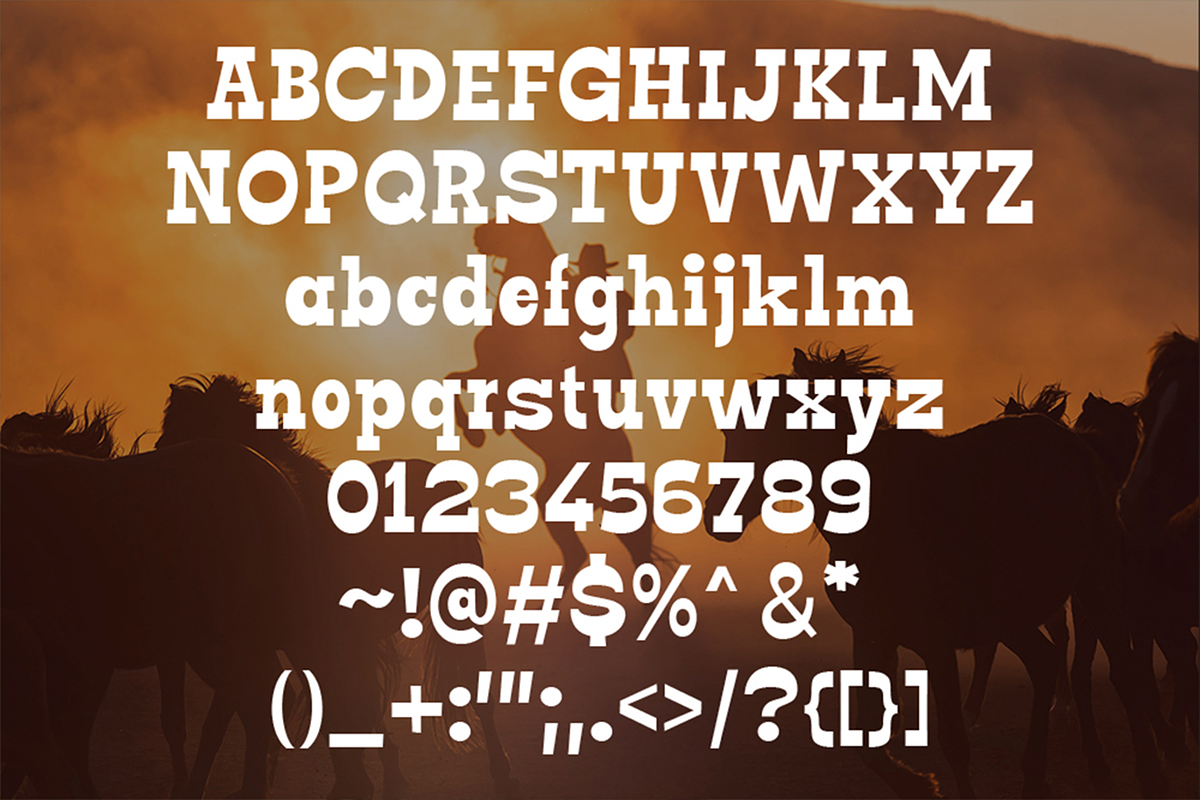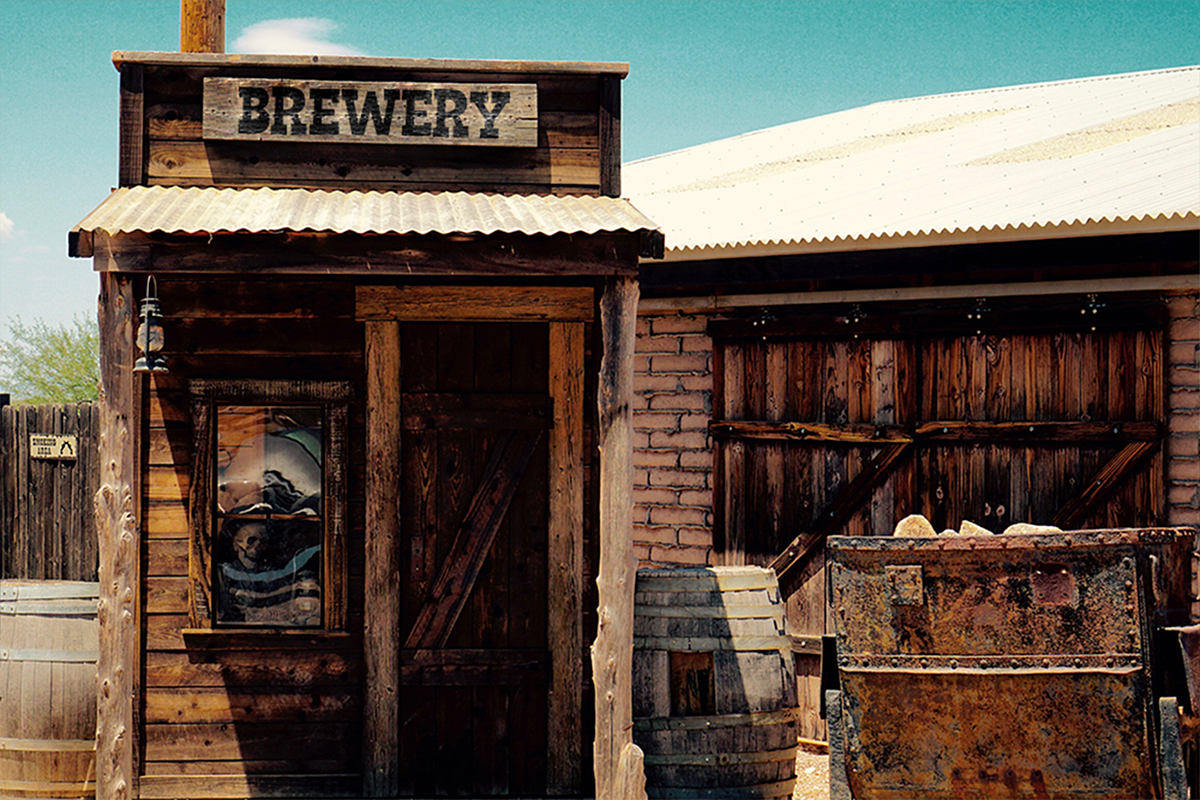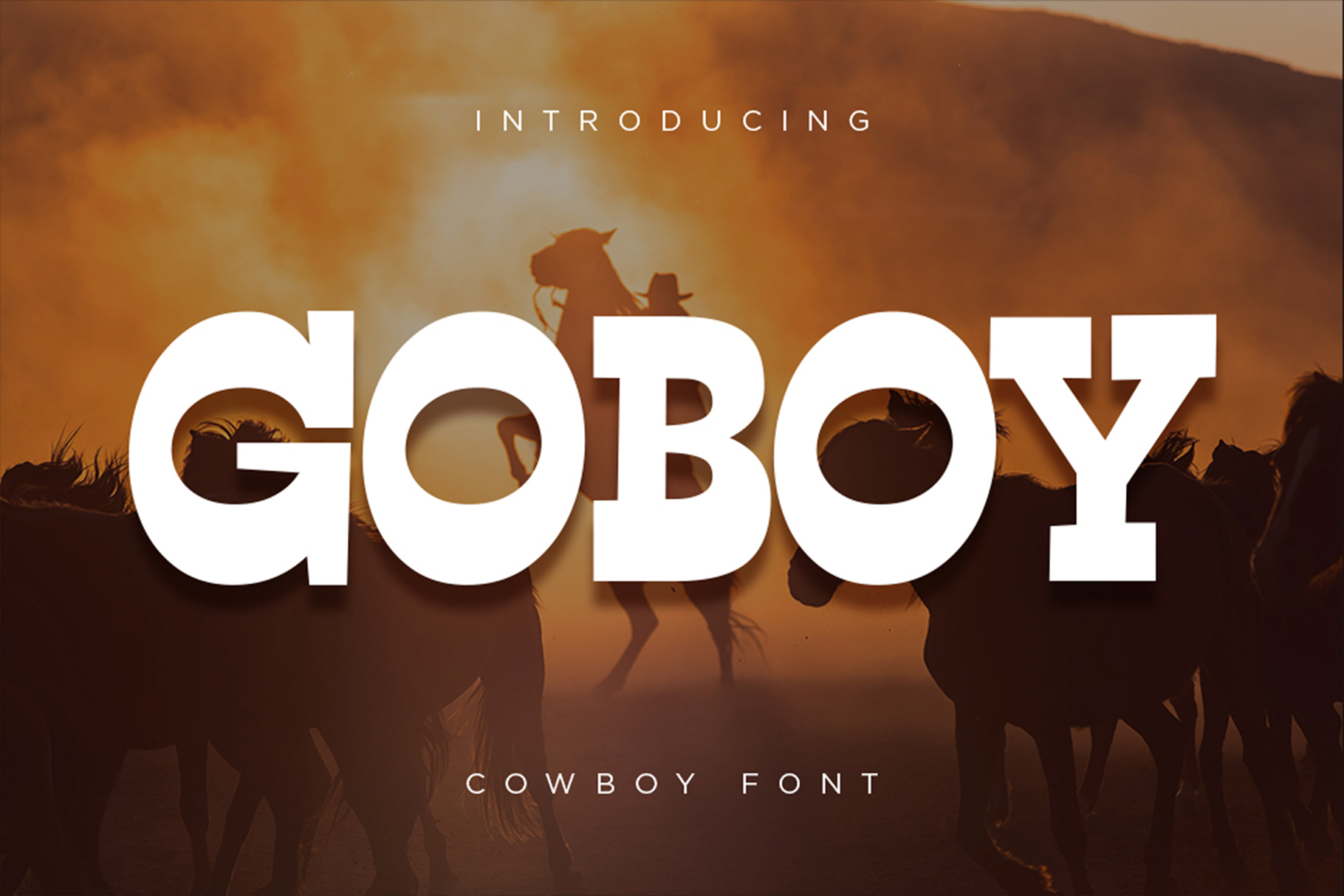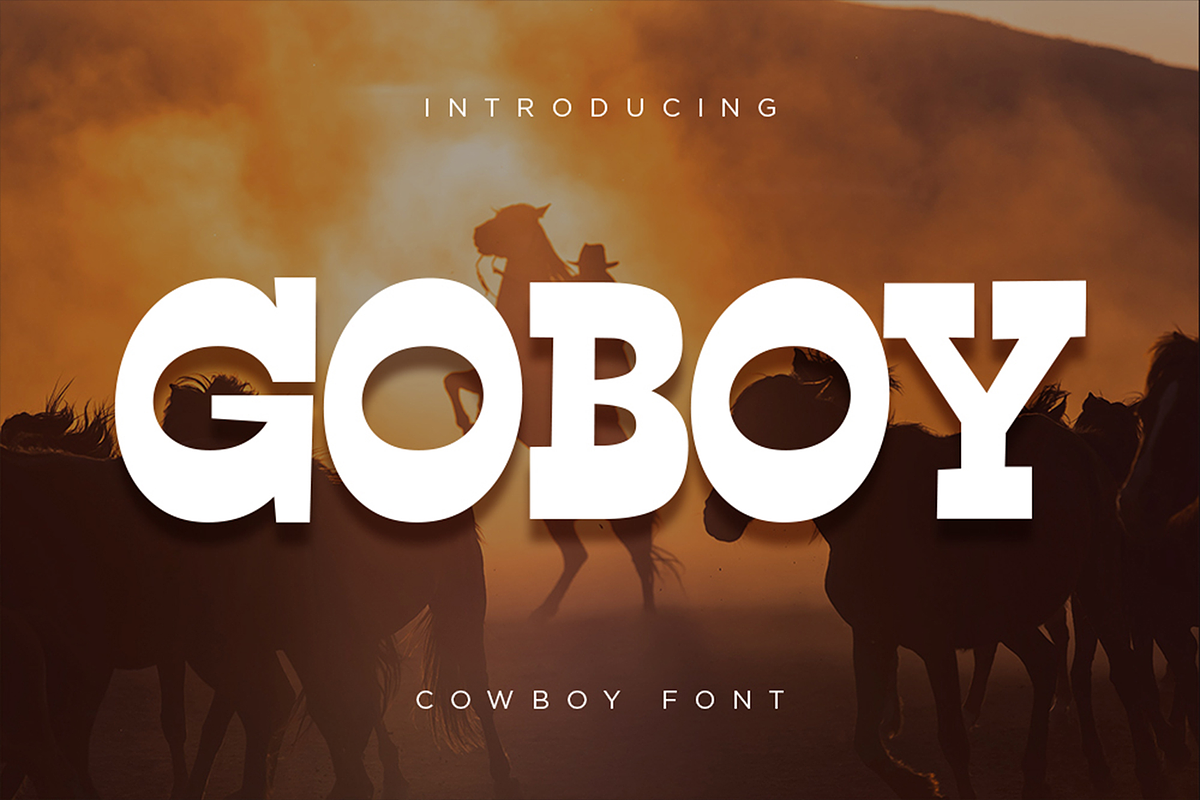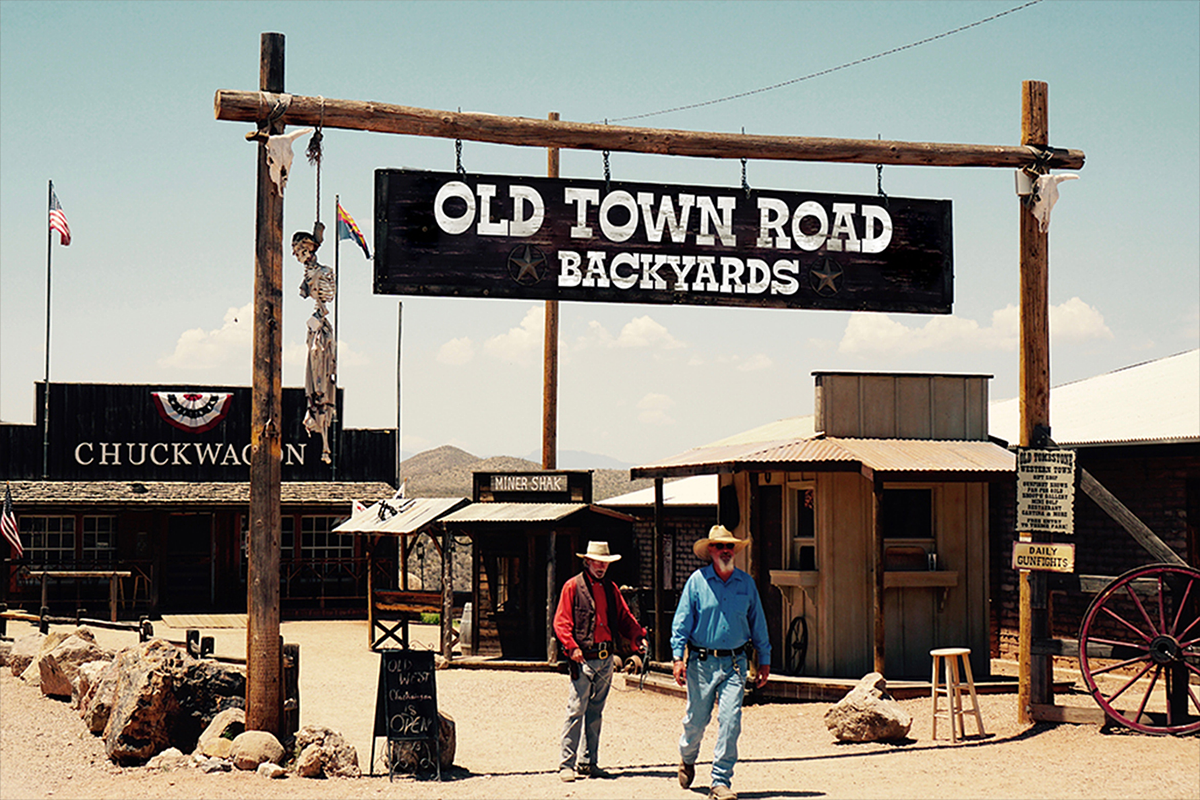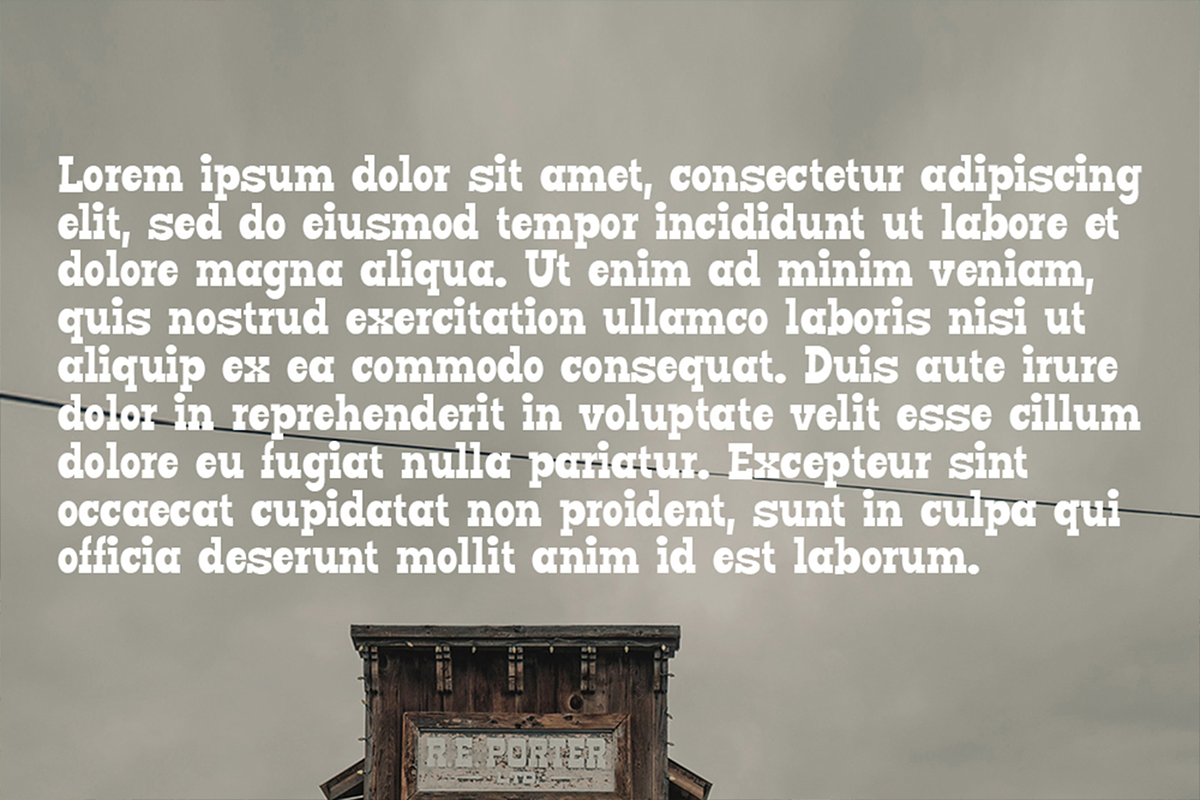
Go Boy – Cowboy Fonts
A slab serif font with the vibes of the cowboy and rodeo era. mixed up with the fun bouncy and playful form in every letter, make the Go Boy is an easy way to go for your logo, branding, packaging, set decoration, visual concept.